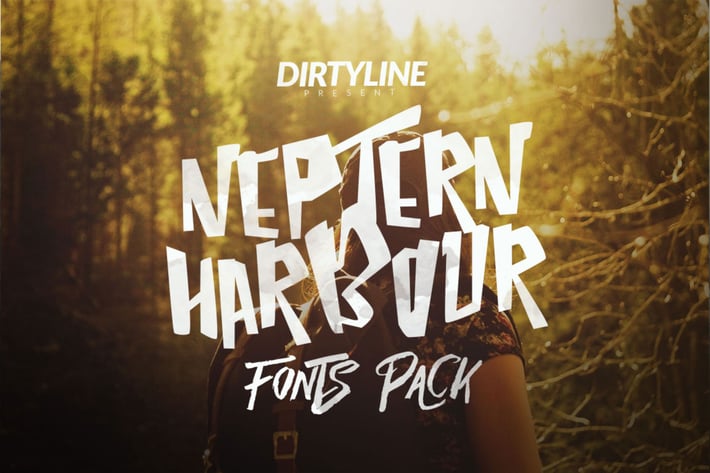
Neptern Harbour Font Display Logotype
Neptern Harbour
is a handrawn Styles, modern and lifestyle, which was created to meet the needs of your next design project. Neptern Harbour, Can used for various purposes. such as the title, signature, logo, correspondence, wedding invitations, letterhead, signage, labels, newsletters, posters, badges, etc.
The Features of this fonts is: Standart ligatures, Stylistic Sets, initial and terminal set